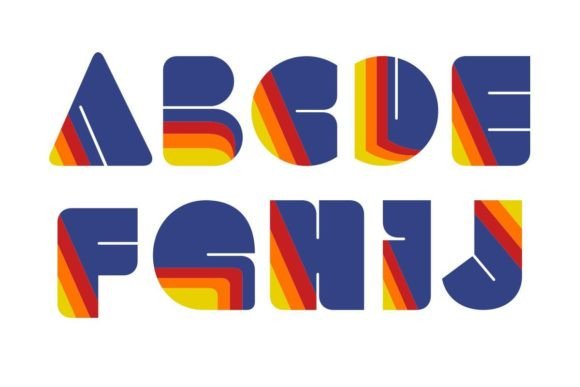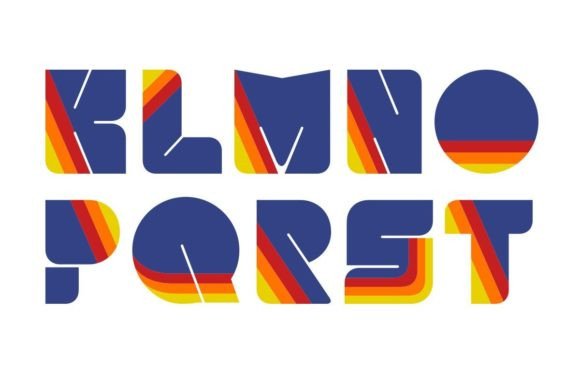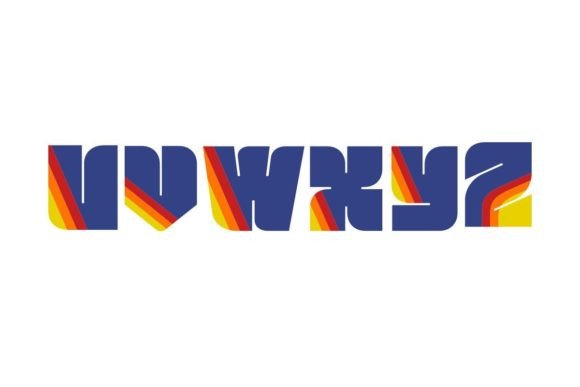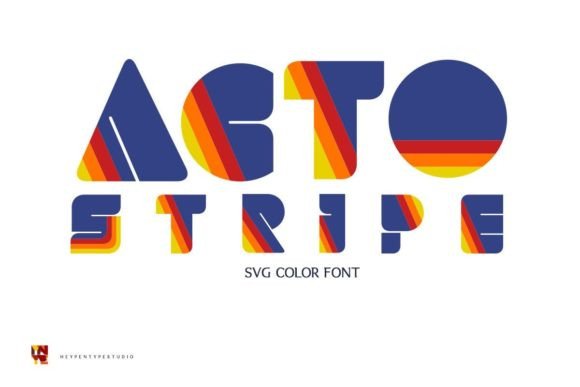
The Retro Revival: Unleashing the Power of Acto Stripe Font
I’ll never forget the struggle I faced while working on a vintage-themed poster project. My client wanted a font that would transport their audience back to the 1970s, but I was stuck in a design rut. That’s when I stumbled upon Acto Stripe Font, and it was love at first sight! ✨ The bold, playful, and colorful vibe of this font instantly resonated with my project’s vision.
What I Love About Acto Stripe Font
- ✅ Retro charm: Acto Stripe Font’s color palette, inspired by 70’s packaging, gives a memorable retro feel to any project.
- ✅ Modern twist: The font’s bulky and funky design, combined with a modern 2000s touch, makes it unique and eye-catching.
- ✅ Versatility: Acto Stripe Font can be used on various creative projects, such as posters, t-shirts, and more.
- ✅ Easy to read: Despite its bold and playful nature, the font remains legible, even at smaller sizes.
While Acto Stripe Font is an amazing addition to any design project, there are a few things to keep in mind: 🤔
- ⚠️ Color limitations: As a color display font, Acto Stripe works best when used with its pre-designed color palette. Experimenting with too many custom colors might dilute its retro charm.
- ⚠️ Legibility at large sizes: While the font is generally easy to read, using it at very large sizes (e.g., billboard-sized) might make it harder to read due to its bold and playful nature.
The Designer Inspiration Behind Acto Stripe Font
Acto Stripe Font was designed with the goal of capturing the essence of 1970s packaging design. The font’s creator drew inspiration from the era’s iconic brands, combining bold colors and playful typography to create a truly unique font. The result is a font that feels both nostalgic and modern, making it perfect for designers looking to add a retro touch to their projects.
Q: What is Acto Stripe Font best used for?
A: Acto Stripe Font is ideal for creative projects that require a bold, playful, and retro feel, such as posters, t-shirts, and other designs where you want to make a statement.